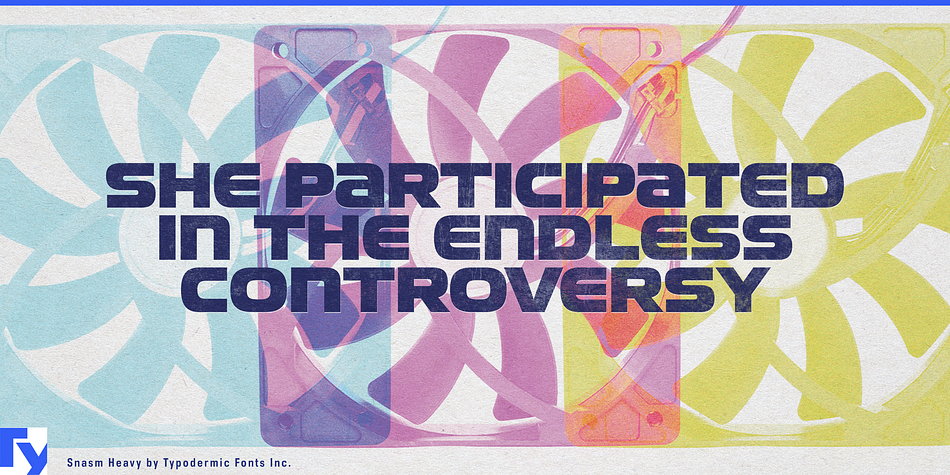
Snasm
Snasm is a display sans font family. This typeface has twelve styles and was published by Typodermic Fonts Inc.
The Snasm typeface is a versatile and futuristic typeface that incorporates modular letter shapes from the late twentieth century, with a focus on wide letterforms. This typeface draws inspiration from the instrumental typeface designs of Donald Handel, known for their clean lines and sharp angles. But that’s not all—Snasm also pays homage to the sleek, high-tech design strategy of the late 1970s through the early 1990s, as seen in logos for Pepsi and the Nintendo Super Famicom.
The Snasm font is not just visually appealing, but it also includes a range of weights and meticulously constructed obliques, making it a valuable asset in any design project. With its stable, sparse caps and roomy lowercase, Snasm is perfect for conveying concepts of science, technology, and high-tech accuracy. This font keeps pace with the latest digital gadgetry and user interface trends, making it an excellent choice for designers who want to stay ahead of the curve.
Using Snasm in your designs can add a futuristic and modern touch to any project, whether you’re creating a new website, designing a mobile app, or working on a digital marketing campaign. Overall, Snasm is a typeface that is as functional as it is aesthetically pleasing, making it a must-have for any designer looking to create high-tech designs that stand out from the crowd.